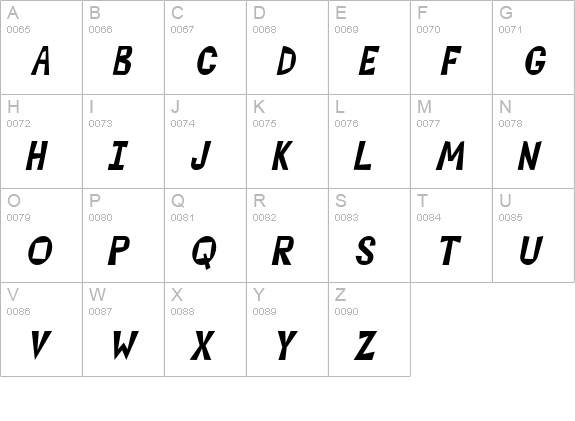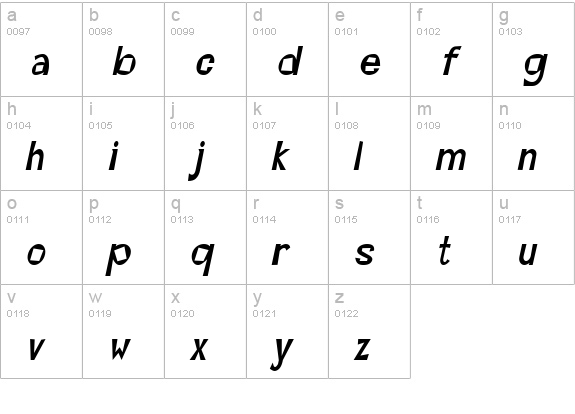
MagooCondensed Italic Font Details
MagooCondensed Italic is a distinctive, italic variant in the MagooCondensed typeface family \xE2\x80\x94 well suited to design and typography projects.
MagooCondensed Italic is a visually captivating and versatile font that effortlessly combines elegance with a touch of playfulness. Its slanted and condensed form adds a sense of dynamism, making it ideal for a wide range of design projects. This font exudes a unique blend of sophistication and modernity, making it perfect for both formal and informal settings. Whether you are designing a wedding invitation, a logo for a trendy startup, or a sleek brochure, MagooCondensed Italic will elevate your project to new heights. The italicized style of MagooCondensed adds a subtle emphasis to your text, making it stand out and adding a touch of personality. Its condensed form allows you to fit more text in limited spaces without compromising readability, making it an excellent choice for headlines, captions, and subheadings. But here's the best part: MagooCondensed Italic is available for free download at FontsMarket.com! You can enjoy the beauty and versatility of this font without spending a dime. Its accessibility makes it a valuable asset for designers, students, and anyone in need of a high-quality font. So why wait? Take advantage of this incredible opportunity and download MagooCondensed Italic today. Let its unique characteristics breathe life into your designs, creating a lasting impression on your audience. With MagooCondensed Italic, you'll have the perfect tool to express your creativity and make your projects truly remarkable.